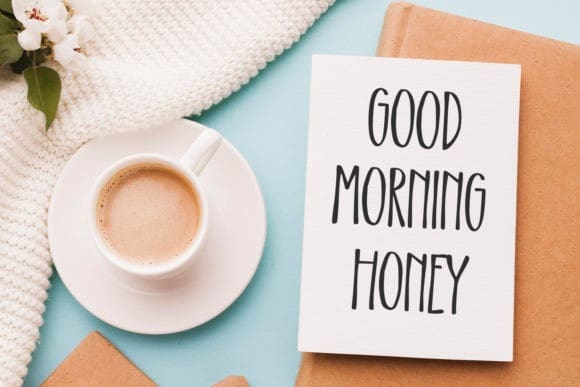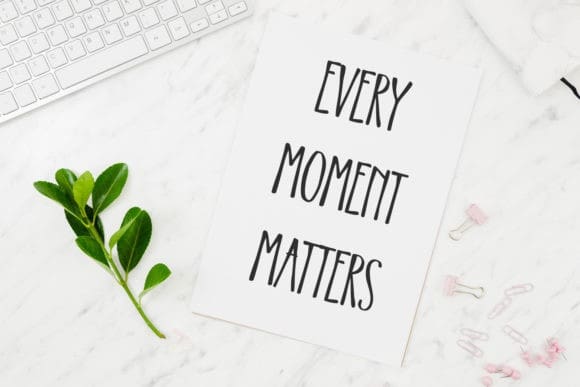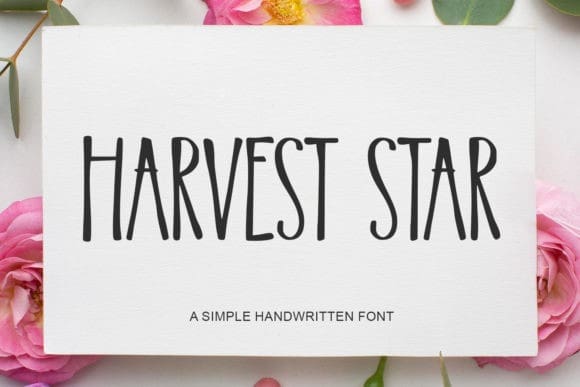
Harvest Star Font
Harvest Star Font is a thin and natural hand-written font. Whatever the topic, this font will be a wonderful asset to your font library, as it has the potential to enhance any creation.